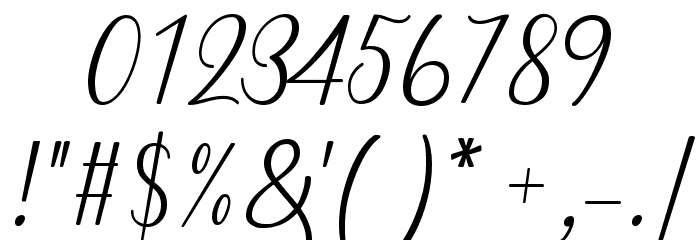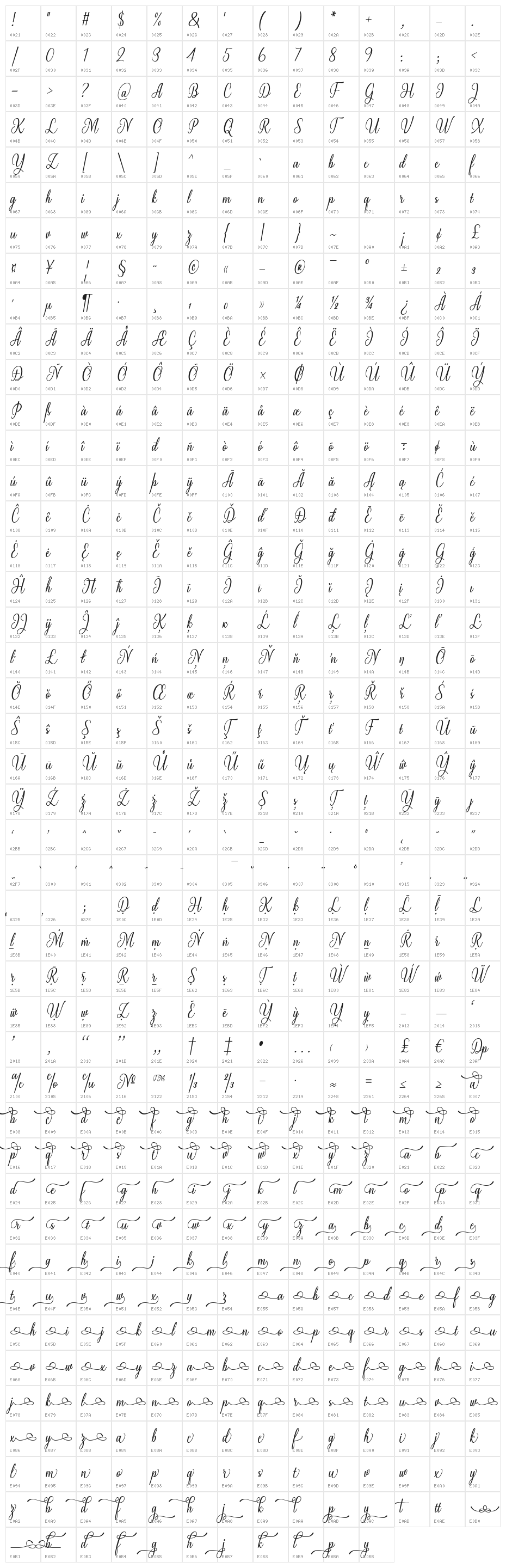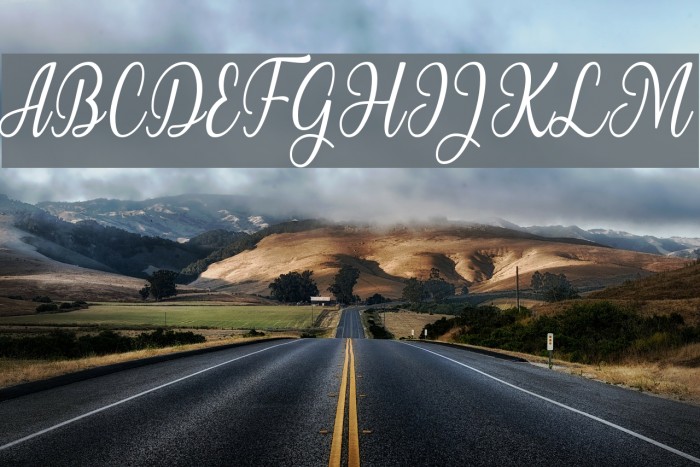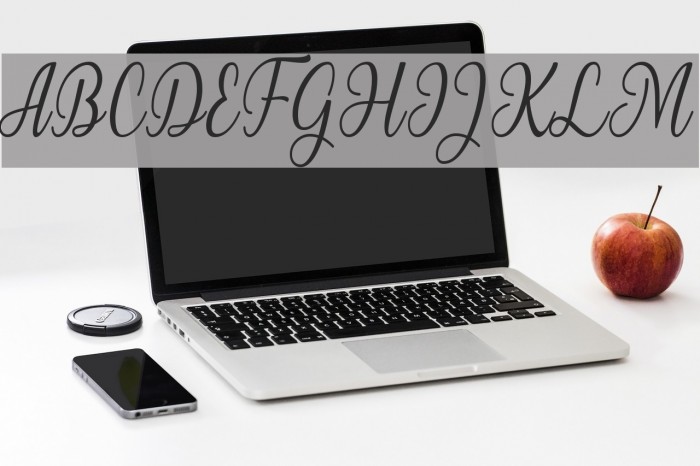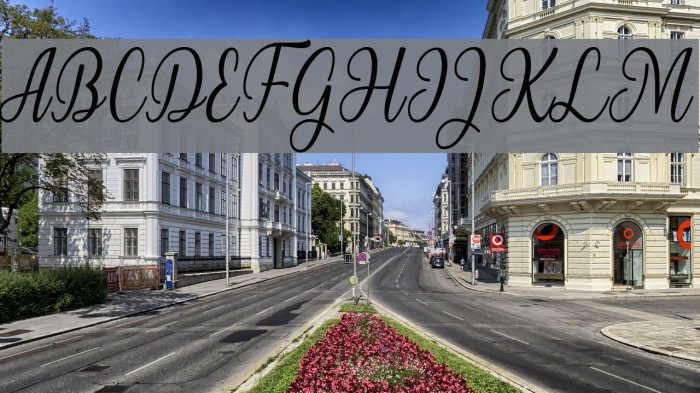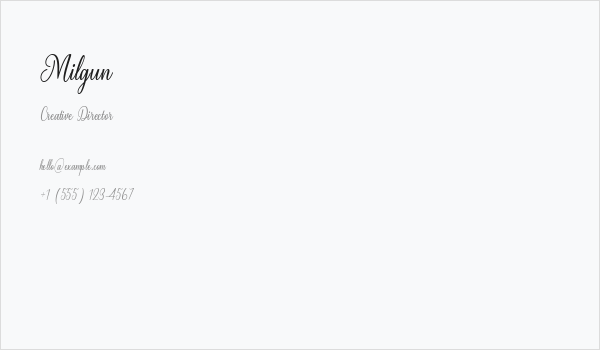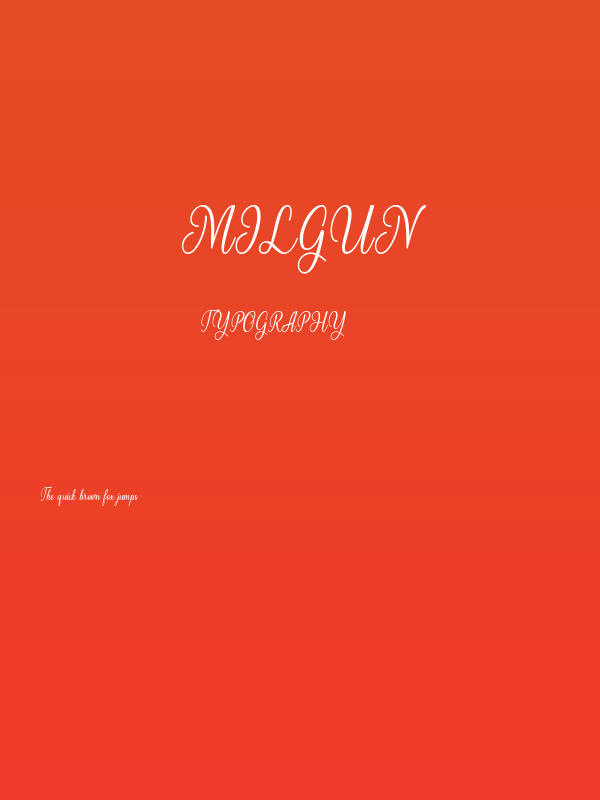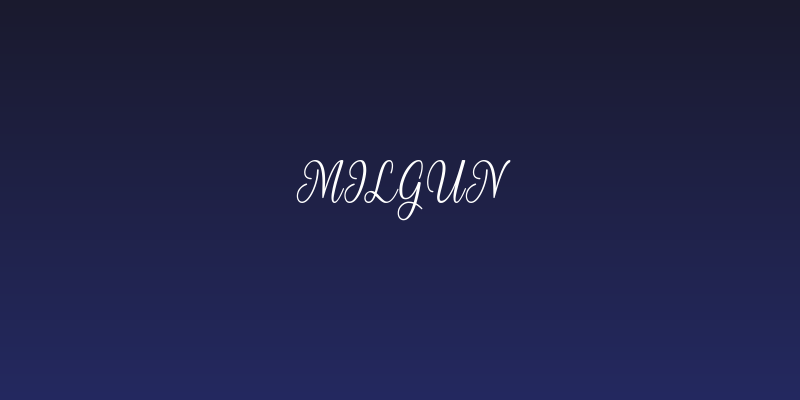
Milgun Font
Milgun Description
This elegant script font features a flowing, cursive style with smooth, connected strokes that emulate the fluidity of handwriting. The uppercase letters are ornate and slightly larger, giving a sense of grandeur and sophistication. The lowercase letters maintain a consistent slant and are designed to seamlessly connect with each other, enhancing the script's natural flow. The numerals are stylishly curved, matching the overall aesthetic of the alphabet. Special characters are thoughtfully integrated, maintaining the font's cohesive look. This font exudes a sense of elegance and is perfect for projects that require a touch of class and refinement.
| Overall Style | Elegant, Sophisticated |
| Proposed Projects | Ideal for wedding invitations, elegant branding, greeting cards, and upscale packaging. |